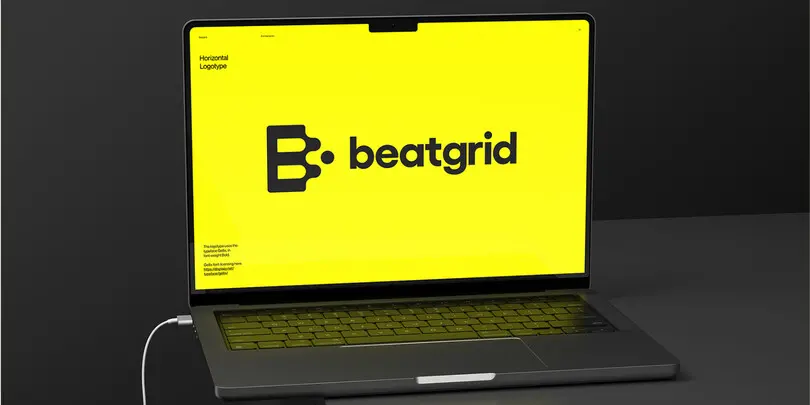
Q&A from the 2023 Type Trends Webinar.
Key Takeaways
- AI and cultural shifts are reshaping expressive typography.
- The webinar drew over 1300 attendees exploring trends like Smart Grid and Pixel Play.
- Knowing these shifts helps you choose type that fits audience needs and brand tone.
We recently presented our 2023 Type Trends report during a lively, interactive webinar. Our Creative Type Directors and report curators, Emilios Theofanous and Terrance Weinzierl, walked through the projects featured in the report to a global audience of over 1,300 live attendees. There were too many thoughtful questions to answer during the Q&A, so we’ve taken the time to answer them below. Enjoy!
Artificial Intelligence.
How is AI influencing type? As we said in the Type Trends report, and in the podcast, “AI will change the art and design world; we just don’t know exactly how it will pan out yet. While artists dabble and dissect the opportunities with new tools like AI, everything is under scrutiny. AI promises to accelerate the prototyping and ideation stages, leaving us more time for strategy.
AI-painted letterforms often have a collaged look, with a soft focus or smudge in places where the machine stitched the image together. Sometimes AI painted type has a bizarre appearance, an uncanny valley vibe we don’t immediately trust.” We’re still holding out for truly AI-generated type that’s as good as the “real thing.” That said, we recently launched a free font pairing tool that uses AI to suggest good font pairs. Gain inspiration for your next project today here.
What was the AI typography book you recommended? Artificial Typography by Andrea A. Trabucco-Campos and Martín Azambuja. Read an interview with the curators here.
Legibility and accessibility.
Are there trends related to meeting ADA requirements and selecting and pairing typefaces? As far as we know, there are no ADA requirements for actual typeface features, just the typography, or how type is used. Legibility is a common FAQ here at Monotype. There are several features that can make a typeface more legible, but again, legibility/character differentiation and readability comfort are a combination of the typeface and typography. Read our recent piece, How to find a legible font, for more information.
What are accessible fonts for medical electronic dashboards? While we don’t have a list of fonts for medical dashboards, we do have two collections for related use cases that can help. Our collection, Sci-Fi Superstars, features fonts that have a contemporary appearance and are well-suited for any electronic screen. Automobile environments also have many similar requirements as medical devices (legibility, resource optimization, environmental considerations, high/low contrast settings), so our Fonts for Cars collection may provide suitable options.
If we are designing for retail environments (convenience stores specifically), do you feel legibility/readability is important? This is a use case where legibility is certainly important. During the webinar, we showed off the branding for Gogo, a convenience store in Beijing, by Meat Studio. The identity falls into our Pixel Play trend, and features familiar-looking pixelated nostalgic iconography for playful everyday items. It’s fun and friendly while being readable.
I am very concerned about the literal illegibility of many current type trends. Typography awards are going to headlines that cannot be read, which goes against everything I know about “communication arts”. Would love to hear comments about this. It depends on the intended audience and message. Like we mentioned in the presentation, type as art might be very hard to read. Type meant for a driver of a vehicle needs to be very clear, while eccentric food packaging lands somewhere in the middle. We will likely see more maximalism trending in 2024, so more illegible stuff coming soon. To each their own.
It is also about expression; we are all different, so why not choose a typeface that expresses a mood or a feeling as well? This might not always be the ideal scenario when legibility is important, but in many instances, expressive typography can make your brand stand out and offer a unique perspective.
Trends and culture.
In our increasingly polarized world, are you seeing any type trends that are split along ideological lines? Or any trends that uniquely bridge those divides? The Match Maker trend doesn’t bridge ideological divides, but points to bridging and embracing of differences. As we said in the type trends report, “This variety and diversity of typefaces continues to reflect this generation’s attitudes, values, goals, and missions. Diversity, equality, and inclusion in visual form, Mix-up describes the human experience and life on Earth: wildly complex, diverse, and rich. It often adds visual depth and interest, being active and inclusive. It’s human. It’s biodiversity. It’s alive.”
Are those trends a good example that the more we get into technology, the more we want to experiment with our paper and pencil ability? We haven’t seen this kind of experimentation since the 90s, kinda like we are trying to get back to our organic roots through technology. Great call-out! As any creative likely already knows, basic drawing skills can help every design discipline. Many of the trends featured in this year’s report had a human touch, whether the designer actually sketched on top of digital work, or hand-drawn elements were simply implied. Our friends at UnderConsideration took a labor-intensive, handmade approach to the physical badges for their 2022 Brand New conference, using molds to create the rubber letterforms (watch a timelapse of their process below). So whether it’s an initial sketching phase or a piece for the final output, it certainly seems as if there’s a collective return to analog experimentation; after all, it’s fun and refreshing to work with your hands and take a break from screens.
Typography (and graphic design) seems to have been obsessed with minimalism for a long time now, but recently there seems to be a shift towards ‘more is more,’ maximalism, illegibility, etc. Why do you think that is? A reflection of our hectic lifestyles? Maybe. Trends ebb and flow, especially long-standing trends of minimalism and maximalism. Our instinct tells us it’s often just being different to stand out, to go against a trend in spite. Maybe it depends on the person; if your life is boring, you will seek adventure and excitement; if your life is hectic, you might seek peace and calm. There is a mood to sell to everyone.
Not that long ago, we had the digital-first trend, simple, no-frills design, because the digital world dictated that recognition comes from other things; this presentation seems to imply that that idea has now gone; thoughts? The simple, no-frills design aesthetic is still here (see our Super Sober trend below). While there’s room for experimentation and maximalism to the extreme, digital experiences and screens will continue to require clean UX to leave room for the experience.
Trends and time cycles.
What happens when it isn’t a trend anymore? Should we try to stick to timeless rather than trend? As mentioned, trends ebb and flow and eventually fade out or become something else altogether. Take Smart Grid, for example. This trend first appeared in 2021 as “Blockheads,” in 2022, we saw it evolve to “Organic Modular,” and now we see it as “Smart Grid, a blend of art and science built on grid structures disrupted - judiciously - by quarter or half circles.” Stick to your project guidelines and needs, trust the brief, and if helpful, use trends as inspiration, not as a rule.
Do you have any concerns with the longevity of trends? Take Pepsi’s new “classic” rebrand for an example. How do companies have longevity as a brand? While trendy work is innovative and fun to admire, there is still value in classic takes. In 2021 we called out a trend about nostalgic typography. Monotype’s own Executive Creative Director, Phil Garnham, said in the 2021 trends report, “There is comfort in the warm, soft-edged physicality of these letter shapes, a nod to a vintage era of playful swashes, fat serifs, quirky letters, and vibrant color schemes.” Classic rebrands like Fisher Price by Emily Oberman/Pentagram, Chobani, and Dunkin Donuts by JKR, are all solid examples of how to maintain longevity as a brand while imparting some classic elements. In short, there’s no right or wrong when it comes to choosing trendiness over heritage. When digging through the history of a brand, you often find some gold. Read this piece for more of Phil’s take on how nostalgia can be a part of timeless branding.
Within these modern trends/designs, do you see preferences in fundamental, more timeless typography rules that are finding new uses? Not to keep plugging Smart Grid, but this trend takes the fundamental grid and flips it on its head, resulting in organized precision that has been selectively softened and made more organic.
Beatgrid by Erik Herrström. Typeface: Gellix by Displaay.
Tools and resources.
FontExplorer is/was an indispensable tool for font management. Where should long-time Font Explorer users turn for a replacement? Our Monotype Fonts platform has font management capabilities and is the spiritual successor to Font Explorer.
Best tools for animating type? Variable fonts can be quickly and easily animated with CSS; there are many accessible tutorials and videos online. You don’t need to be a coding expert to do so! You can also create animations in AfterEffects with the use of some plugins. And for Python aficionados, DrawBot is an amazing tool that can also be used to animate variable fonts; it also has many exporting capabilities, including videos!
Is there a Monotype service for the freelancer similar to Adobe Fonts? Our individual plans on the Monotype Fonts platform provide access to over 400,000 fonts.
What software is being used now to create fonts? We use Glyphs app at Monotype and have our own special and private tools. Others use RoboFont or FontLab editors. Many type designers and engineers publish their python scripts on GitHub. There is a healthy font tool community out there, and many online classes and workshops available! Check out Type Electives, an online design school shaping the future of type, co-founded by Lynne Yun and our very own Juan Villanueva.
What are your favourite sources (website, accounts, newsletters…) to stay up to date with what happens in the design world? You’re in luck! We have an article here about some of our favorite sources of inspiration.
Trends in practice.
How might a small nonprofit stay up to date with trends, when design resources are limited, and we’d never use 30 typefaces – we need to keep it simple! Keep it simple with classic typefaces that never really fall out of style like Helvetica or Avenir. If changing creative resources like fonts and images is out of the budget, consider the tone of voice and copywriting. These trends are not just about form; they are about tone too.
How is sustainability taken into account in type design? You can improve your digital design by using sustainable fonts including compressed fonts, variable fonts, and micro type. Compressed fonts have faster font load times, boosting website load speeds as well. Read on for 4 tips for being more sustainable when you design. If podcasts are more your thing, listen to our podcast episode with Nathan Lance, creative director at Leap, a B Corp certified design agency in Truro, England, where he shares his expertise on eco-friendly design, sustainability, and brand transparency.
Trends never end.